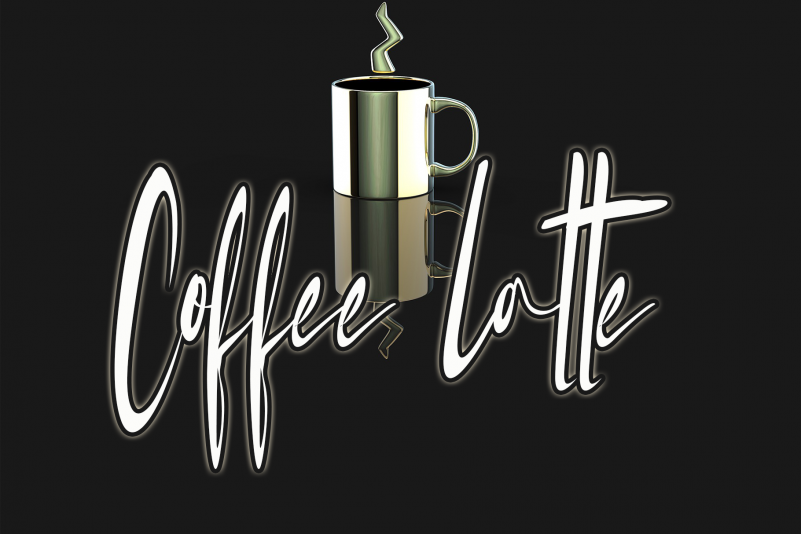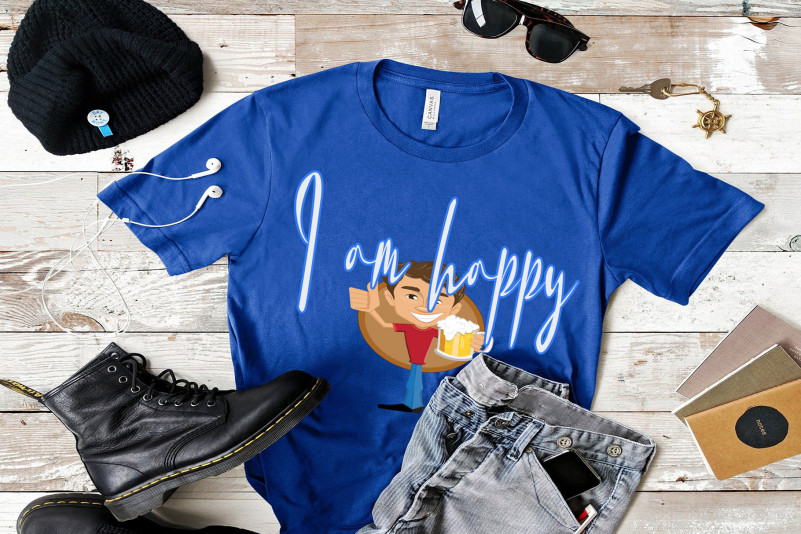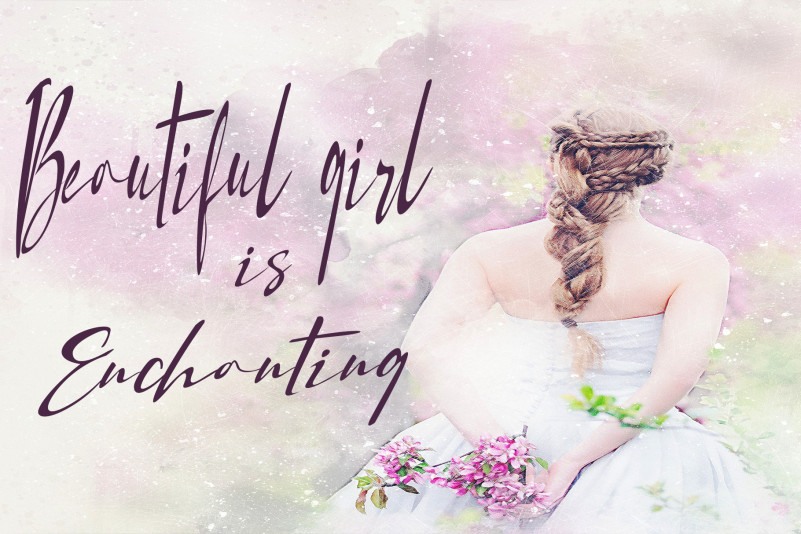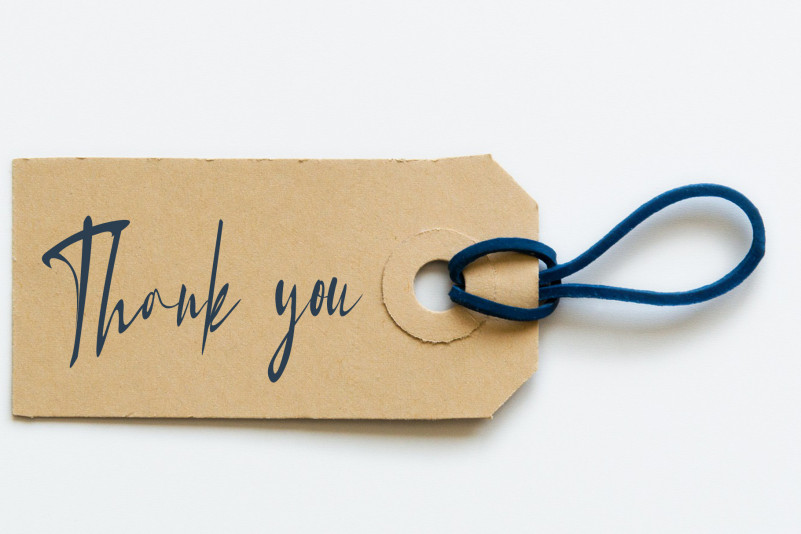
The Offman Font
The Offman Script Font
This is a beautiful light handwritten font with a unique feel and a stunning impact. It will add a luxury spark to any design project that you wish to create!